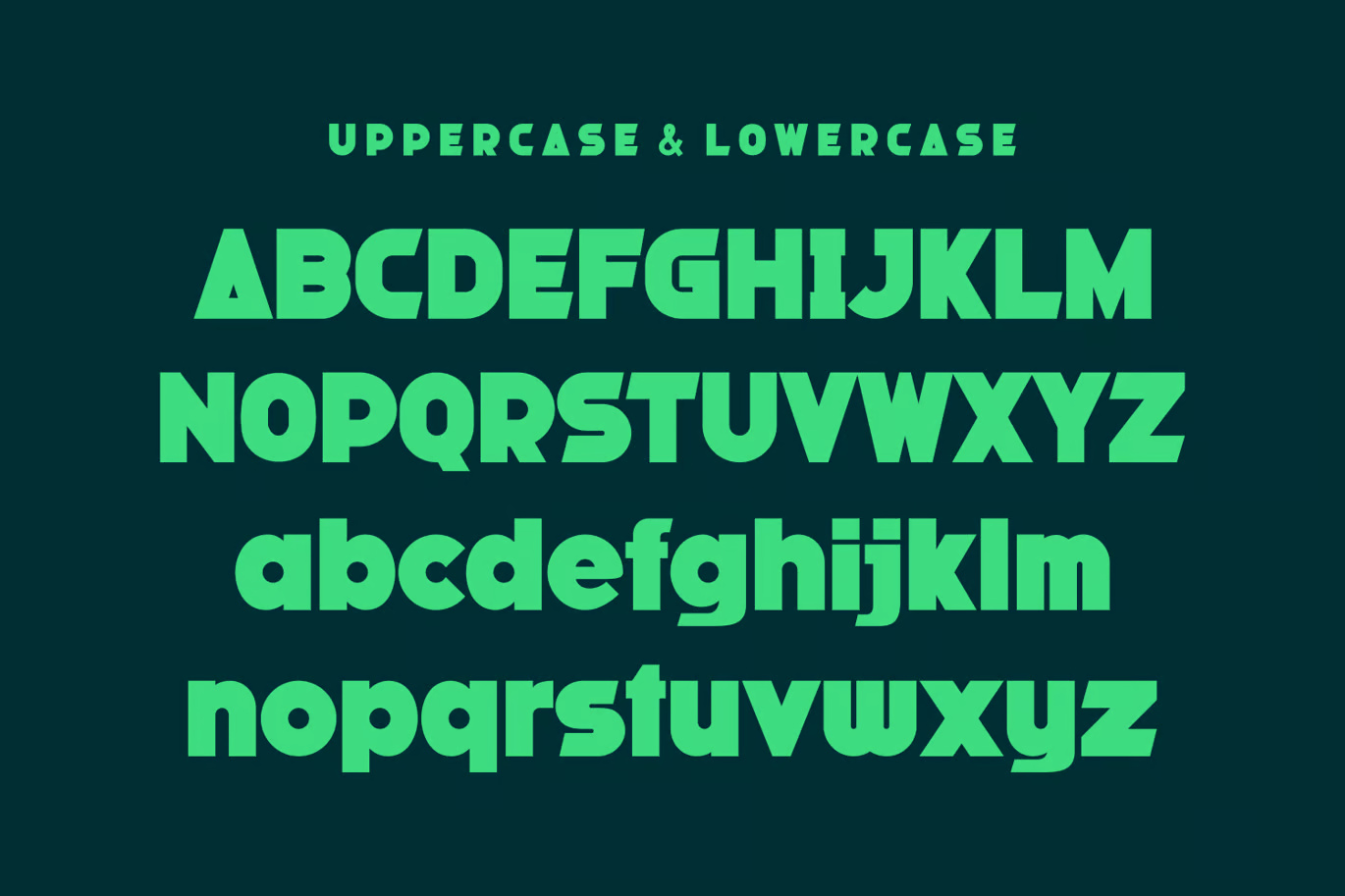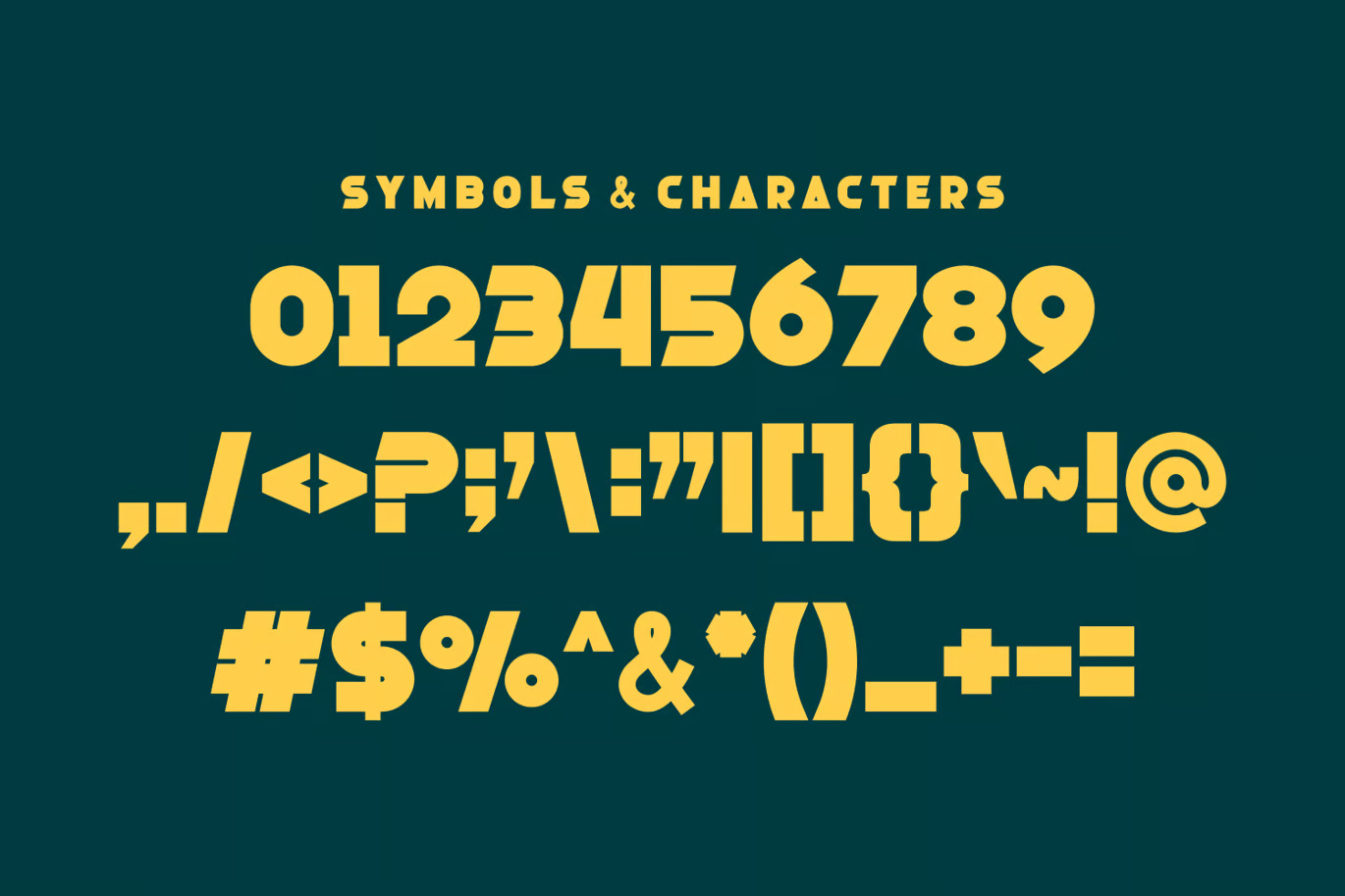
Muars is a striking bold modern typeface designed to make a powerful visual impact. Its clean lines and contemporary styling make it an excellent choice for both print and digital media. Whether you’re working on branding, business cards, posters, logos, magazine layouts, covers, banners, t-shirts, or even large-scale artwork, Muars adds a bold and confident personality to your design.
With its versatile look, Muars can adapt to both minimalist and expressive compositions, making it a great asset in any designer’s toolkit.
Muars Bold Sans-Serif Modern Font